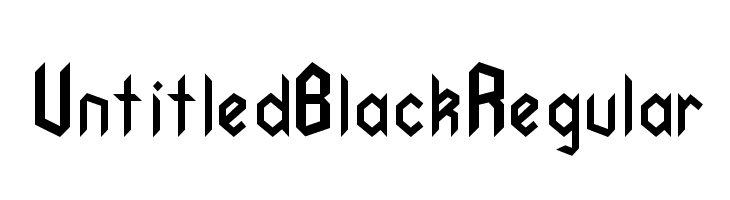
( Fonts by Untitled Motion )
A bold, zigzag-patterned font that conveys motion and energy.
A decorative font with geometric and ornamental elements, ideal for striking displays.
Ornate skull illustrations form each character in this decorative display font.
( Arantxa Mendoza )
A bold, geometric font with a modern, tech-inspired design.
A modern, geometric font with thin lines and a minimalist design.
A bold, geometric font with a modern, industrial style.